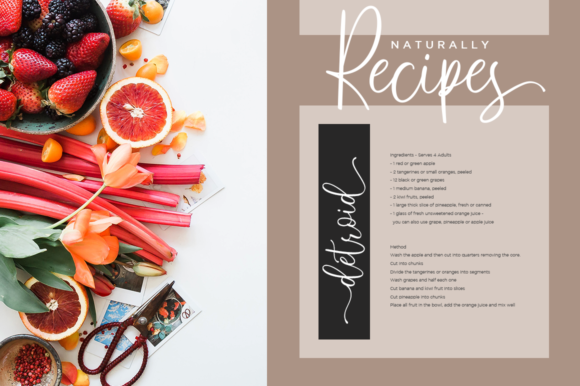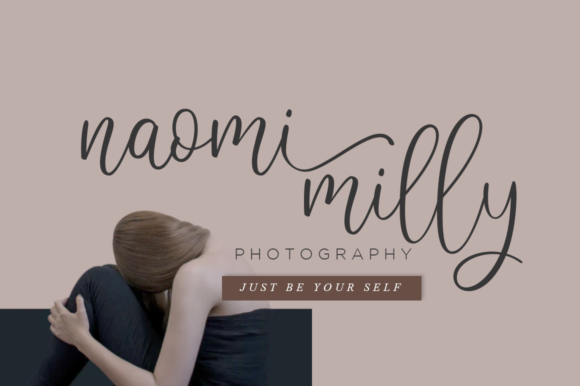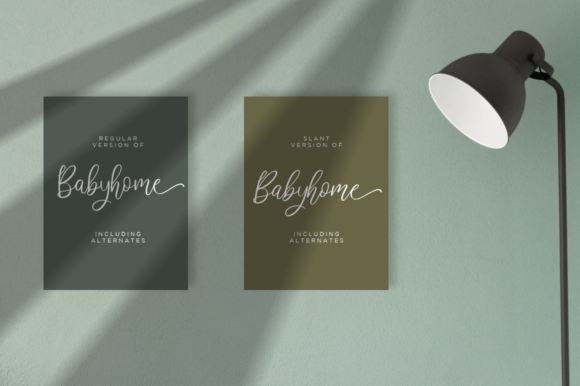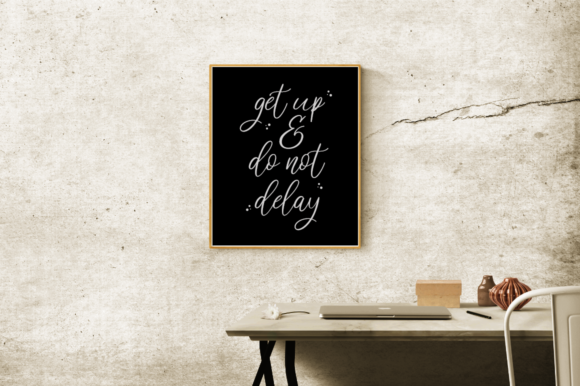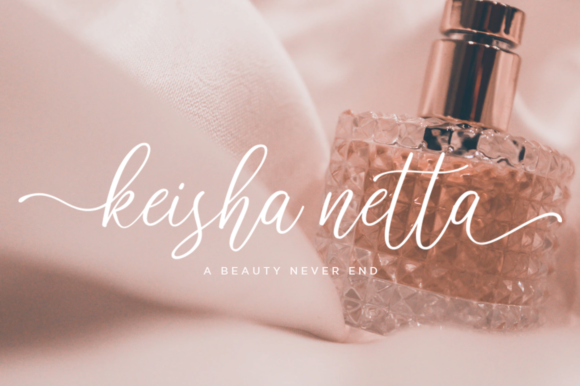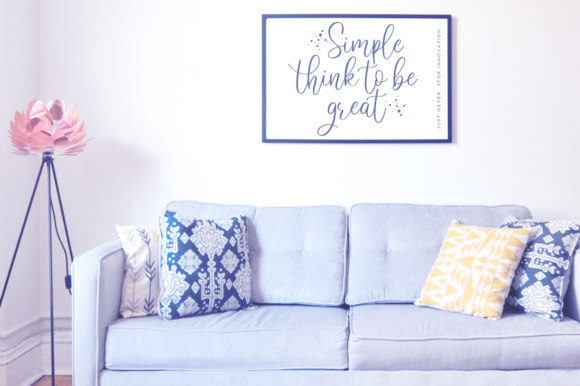
Unleashing Creativity with Babyhome Font
As a designer, have you ever found yourself staring at a blank page, searching for the perfect font to bring your project to life? The struggle is real, but sometimes, all it takes is one discovery to set your creativity soaring. For me, that moment came when I stumbled upon the Babyhome Font – a sweet and cool script that exudes a unique vibe.
Babyhome Font is more than just a stylish addition to your design; it’s a versatile tool that can elevate your branding, advertising, and even editorial content. Its playful yet sophisticated nature makes it a valuable asset for designers looking to add a touch of whimsy to their work. Whether you’re working on a children’s book or a fashion magazine, Babyhome Font is sure to captivate your audience and leave a lasting impression.
Babyhome Font Key Features
- Character Set: This font includes a wide range of characters, including Latin, Cyrillic, and Greek alphabets, as well as punctuation marks and symbols.
- Unique Characteristics: Babyhome Font features a modern, playful design with rounded edges and soft curves, making it perfect for creating a friendly and approachable atmosphere in designs.
- Font Style: This font is available in Regular and Bold styles, allowing designers to add depth and emphasis to their text.
Babyhome Font Review
As a designer, I was excited to try out the Babyhome Font, and here’s my honest review.
- Soft and cute design: The font has a lovely, hand-drawn feel that’s perfect for baby-related projects or children’s books.
- Wide language support: Babyhome Font supports a wide range of languages, making it a great choice for international projects.
- Available in multiple styles: The font comes in a range of styles, from light to bold, giving you flexibility in your design.
- Limited expressiveness: While the font is cute, it’s not particularly expressive or versatile, making it less suitable for more complex designs.
- Not ideal for body text: Due to its cursive nature, Babyhome Font is better suited for headlines or titles rather than body text.
Overall, I think Babyhome Font is a great choice for designers looking for a soft, cute font for specific projects. While it has some limitations, it’s a solid addition to any font library.
Tips for Getting the Most Out of Babyhome Font
Use Babyhome Font to create a cohesive brand identity across all your marketing materials.
Experiment with different font styles and sizes to add visual interest to your designs.
Combine Babyhome Font with other design elements, such as images and graphics, to create a unique and engaging visual brand.
Babyhome Font is perfect for:
Creating child-friendly branding materials, such as nursery decorations and children’s books.
Designing educational materials, such as worksheets and study guides.
Developing marketing campaigns for family-friendly products and services.
Alternatives to Babyhome Font
Great Vibes is a modern, elegant script font perfect for creating a sense of sophistication and luxury. It is ideal for use in branding, advertising, and editorial design where a touch of elegance is required. Compared to Babyhome Font, Great Vibes has a more refined and polished look, making it suitable for high-end designs.
Lobster is a fun, casual script font that is perfect for use in casual and playful designs. It is ideal for creating a laid-back and friendly atmosphere, making it suitable for use in social media, advertising, and packaging design. Compared to Babyhome Font, Lobster has a more relaxed and informal look, making it suitable for everyday use.